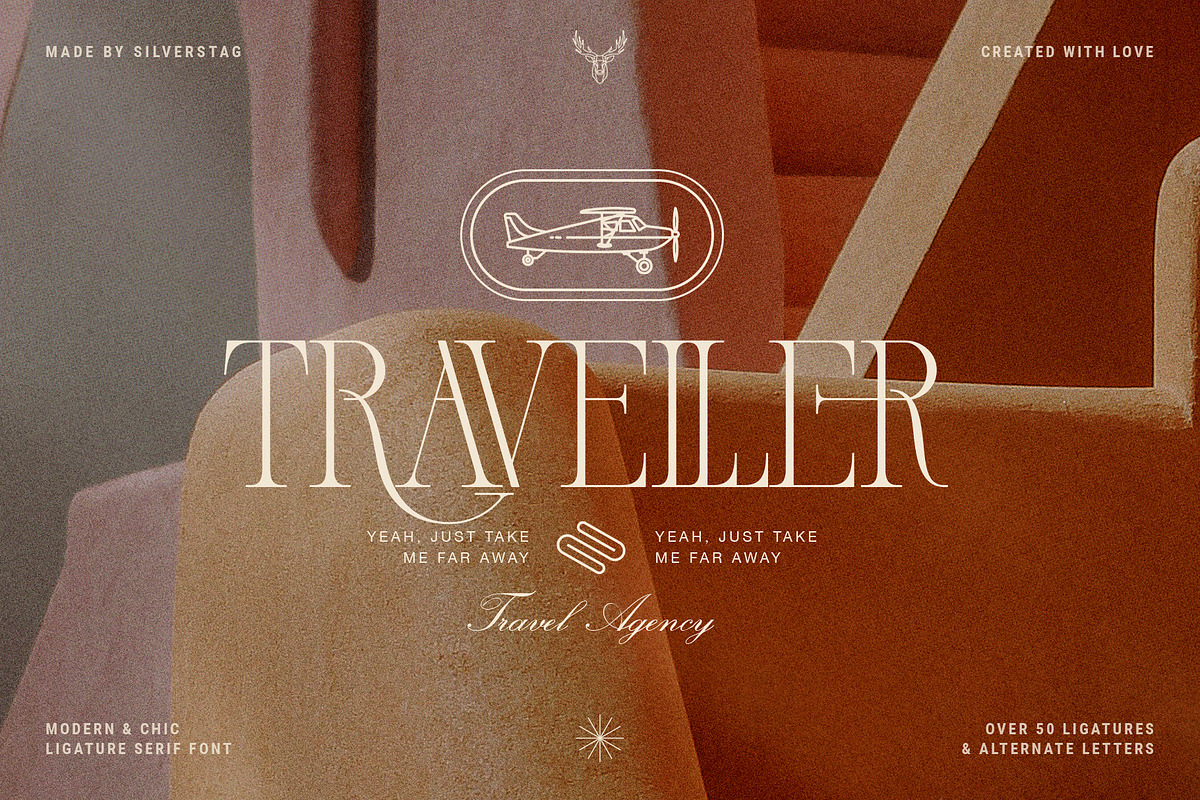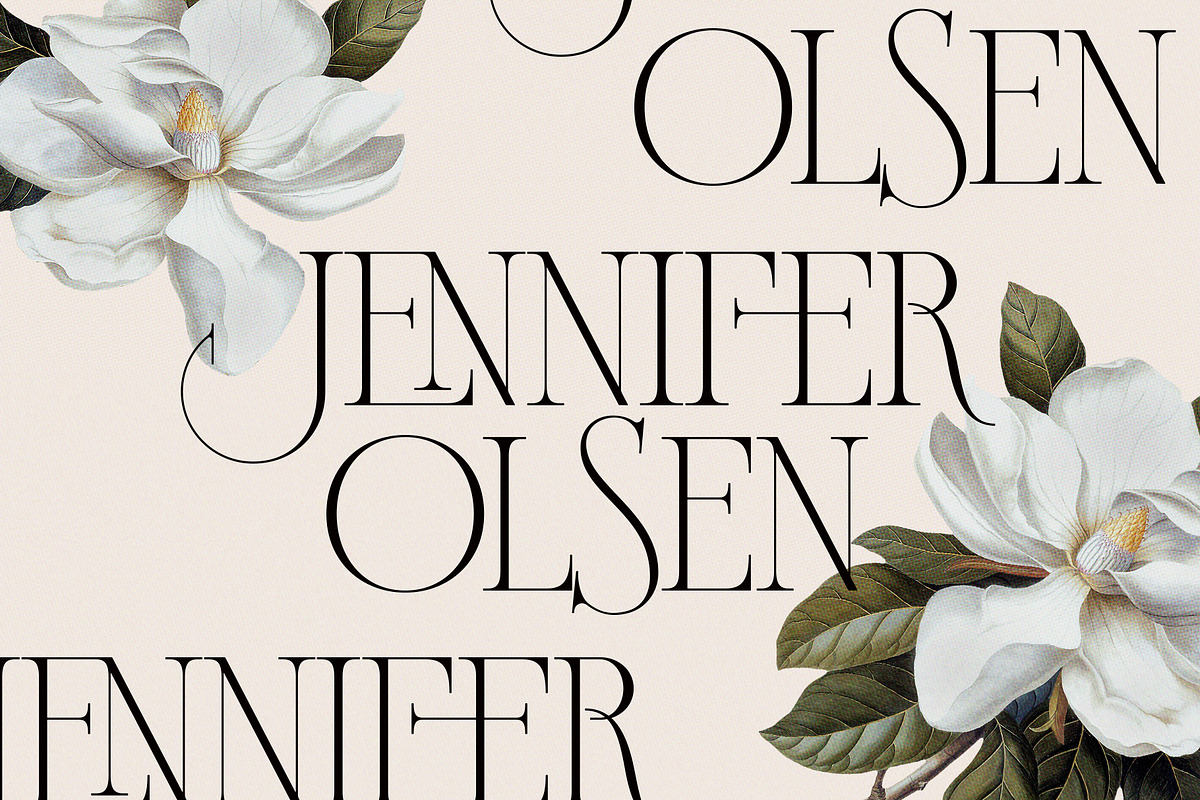
French Voyager is a brand new nostalgic serif font revival that brings all these and even more. Vintage & chic, nostalgic & super elegant, modern & art deco!
It is perfect for logos & quotes, posters & branding, website headlines, newsletters & more! It includes over 60 ligatures and some chic alternate letters, so you can combine it to get the look you want!